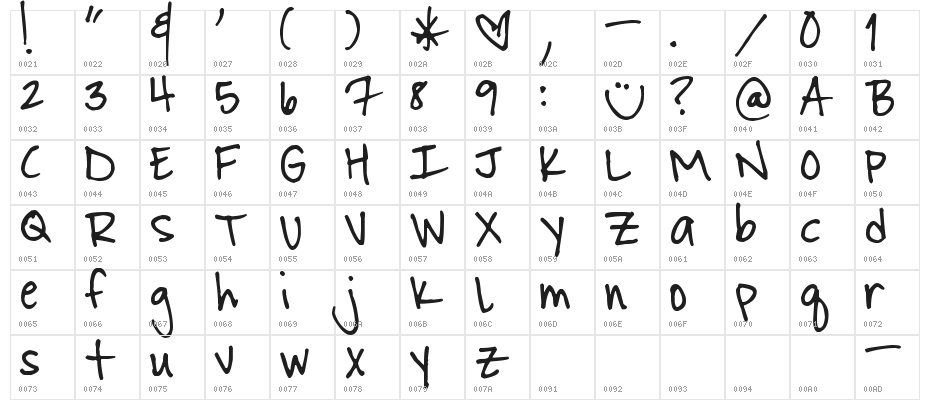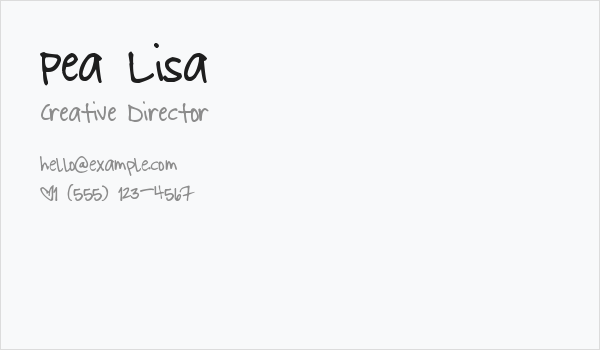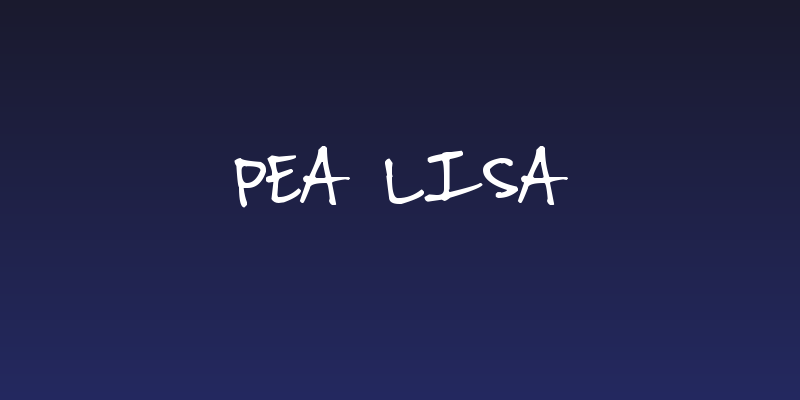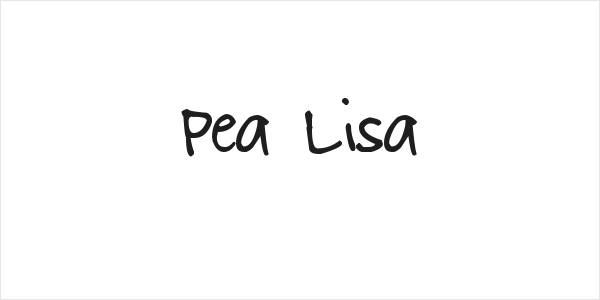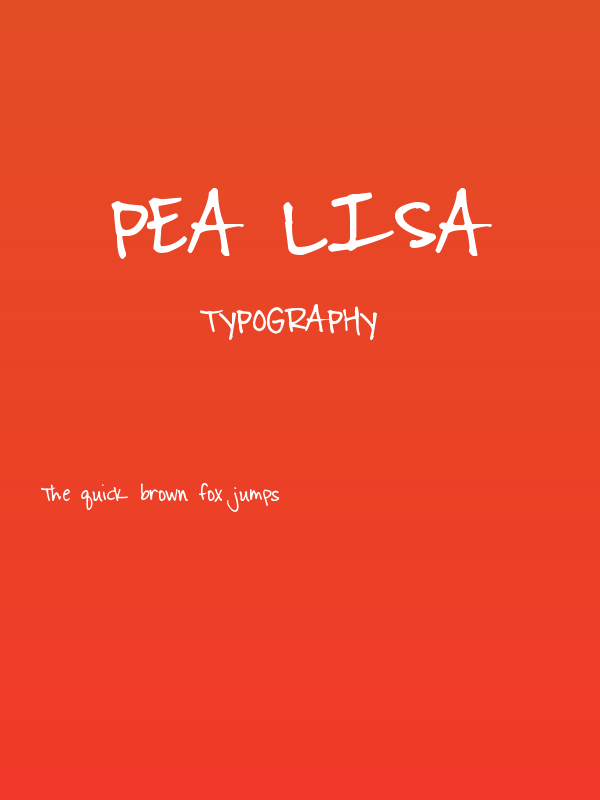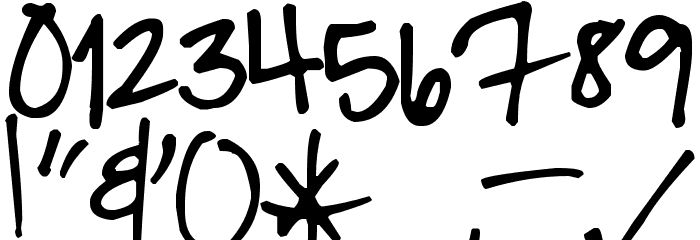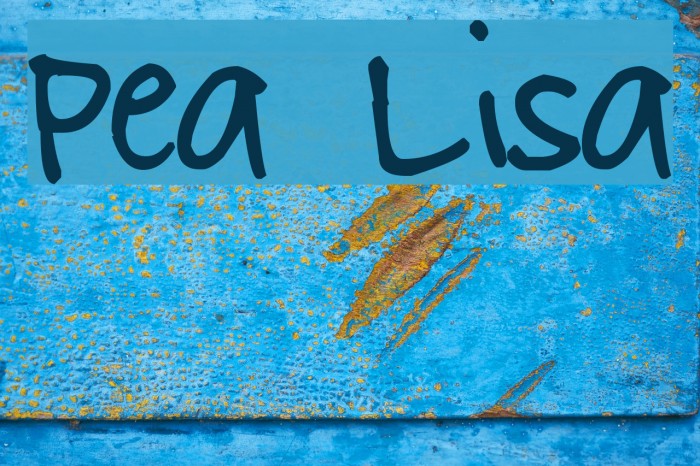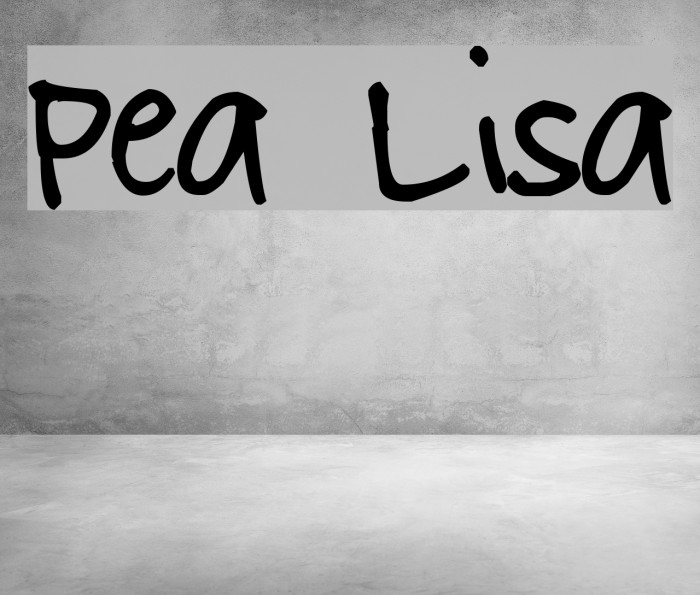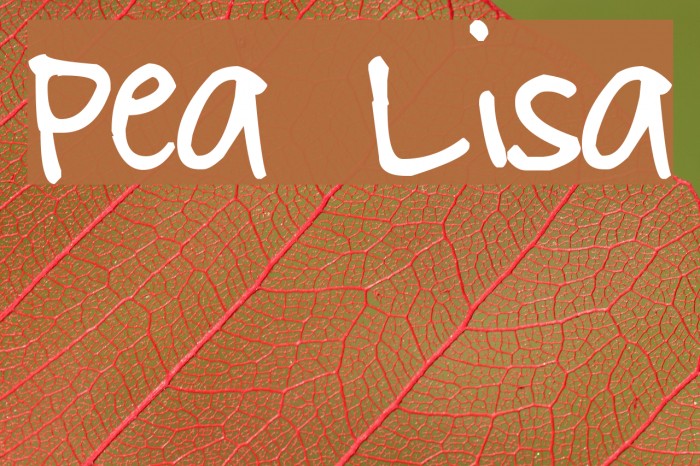
Pea Lisa Font
Pea Lisa Description
This font exudes a playful and casual handwritten style, characterized by its loose and flowing strokes. The letters are unevenly sized, adding a personal and informal touch. The uppercase and lowercase letters maintain a consistent style, with rounded edges and a slight slant, giving the impression of a quick, yet deliberate, hand-drawn script. The numbers and special characters follow the same aesthetic, making the font versatile for various informal applications. The overall appearance is friendly and approachable, perfect for projects that require a personal touch.
| Overall Style | Casual |
| Use Case | Logos, Informal text, Greeting cards |
| Proposed Projects | Ideal for greeting cards, personal notes, informal invitations, and playful branding. |